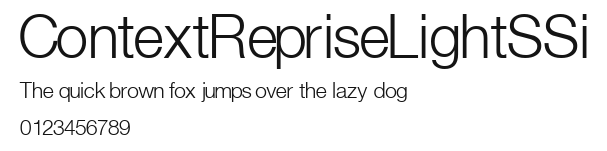
• Font Name: ContextRepriseLightSSi
• Full Font Name: ContextRepriseLightSSi Bold
About ContextRepriseLightSSi.ttf
ContextRepriseLightSSi.ttf is a modern, elegant sans-serif font designed for ultimate readability and visual harmony. Perfect for branding, headlines, web design, and print materials.